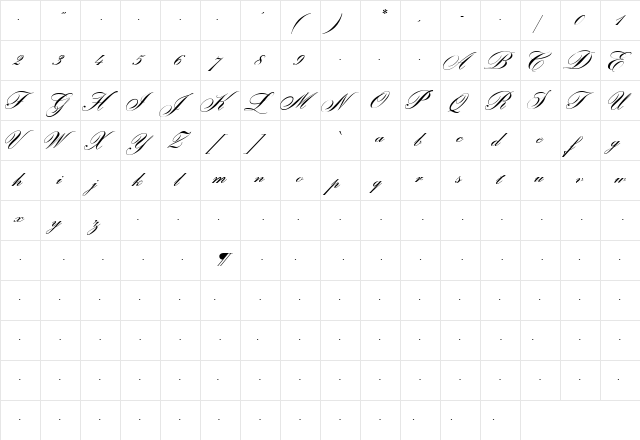
OfficeScriptDT ItalicBold
Design Context for OfficeScriptDT Typeface
OfficeScriptDT flows with the natural rhythm of handwritten lettering, making it ideal for designs that call for warmth and personal expression. Its bold stroke weight gives it real presence on the page.